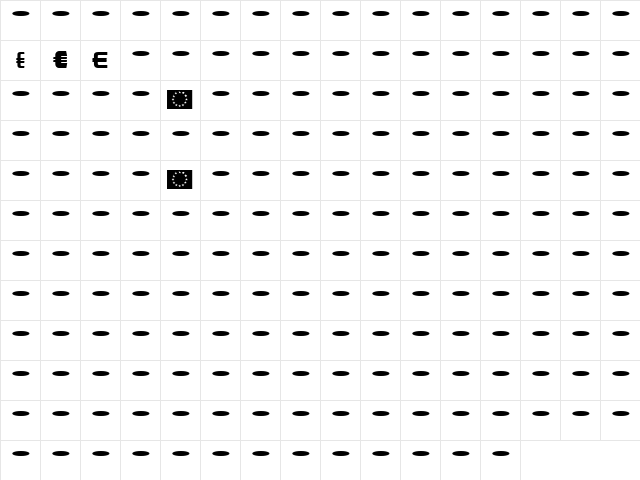
Complete ModerneGothics-Euro Regular glyph index. Displaying only characters natively supported by ModerneGothics-Euro Regular font.
ModerneGothics-Euro takes a clean, functional approach - its unadorned letterforms prioritise legibility and work reliably across screen and print environments.
Who designed the ModerneGothics-Euro Regular font?